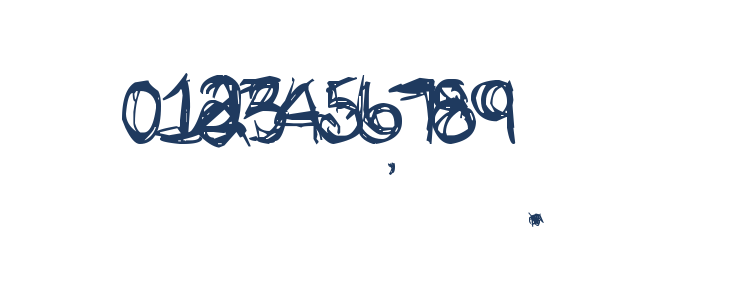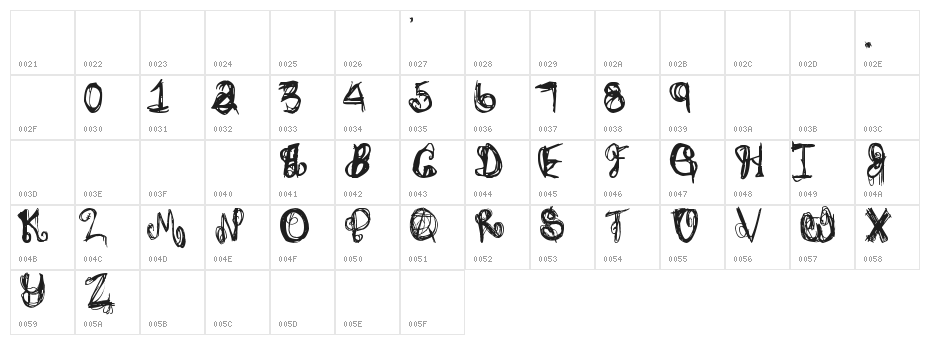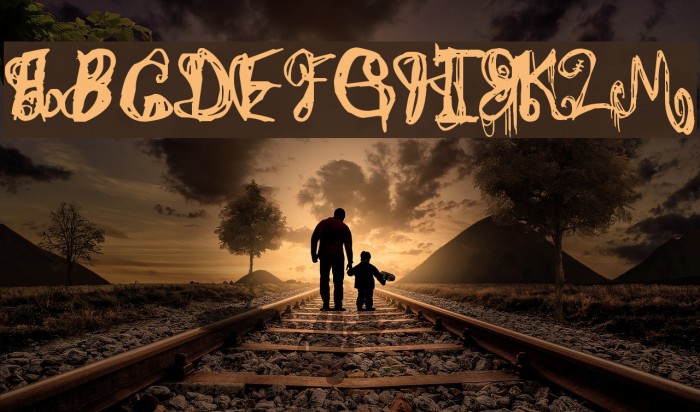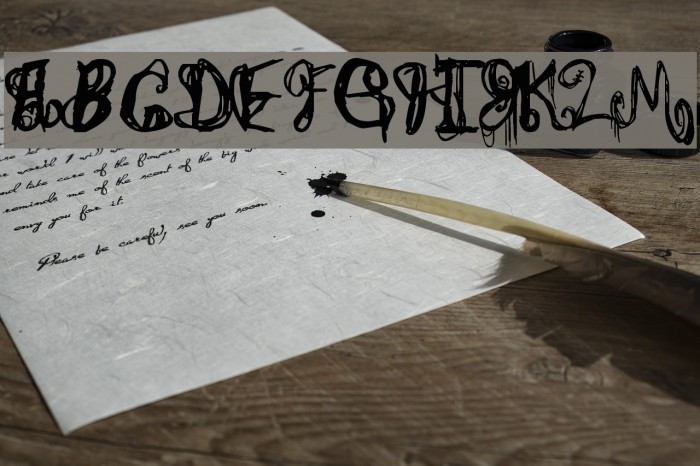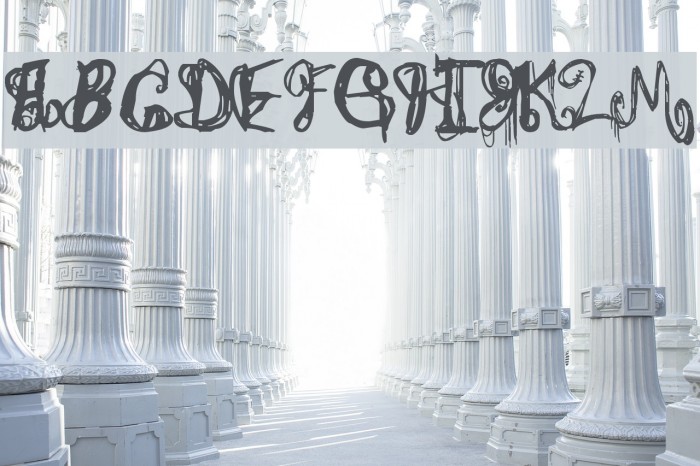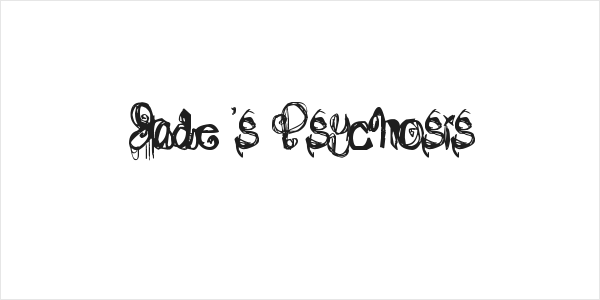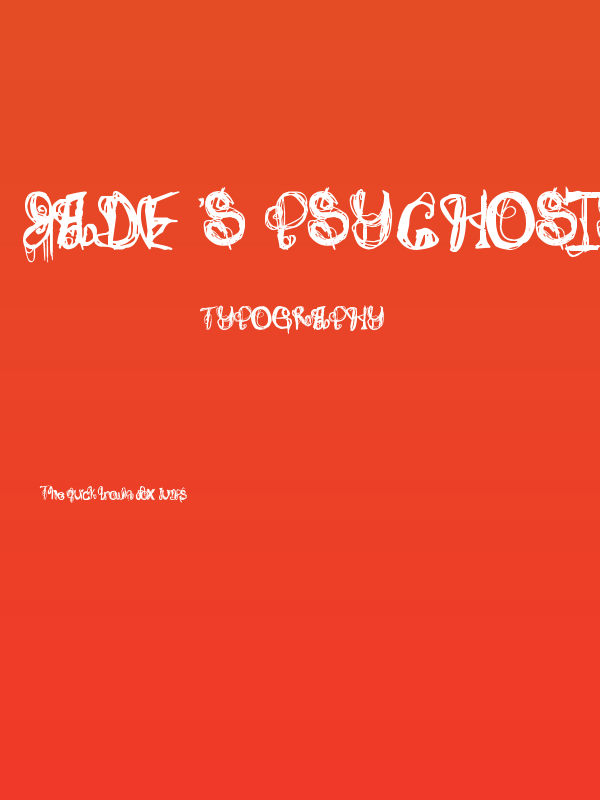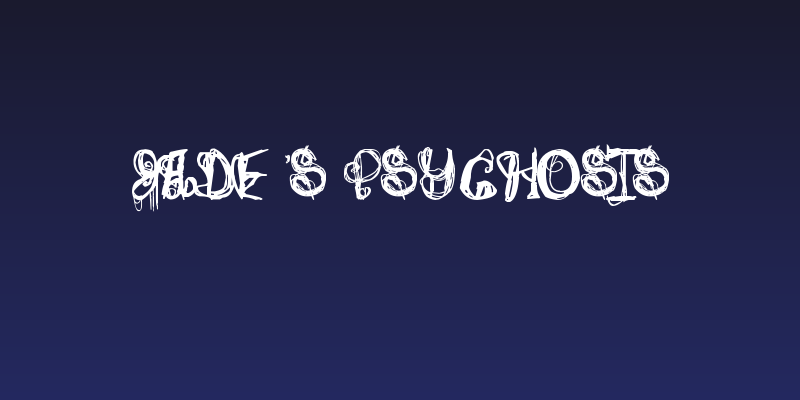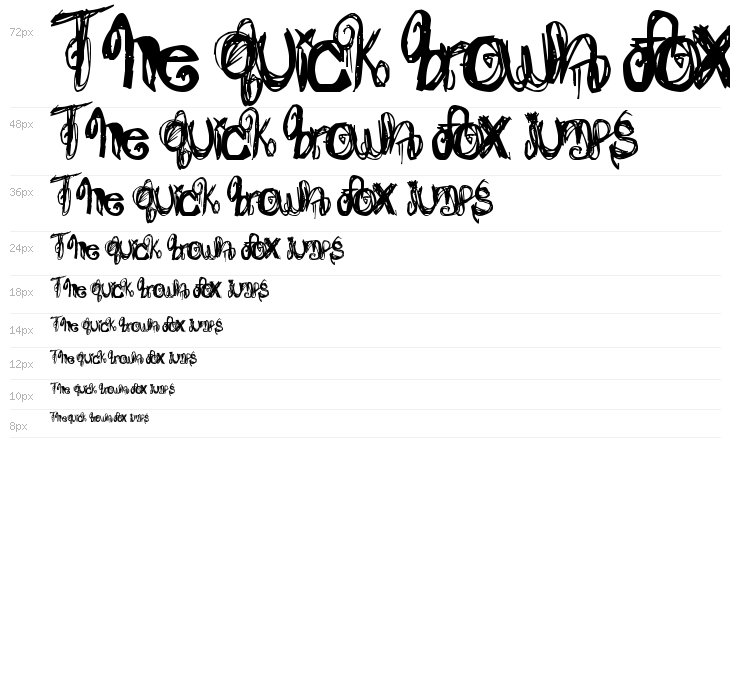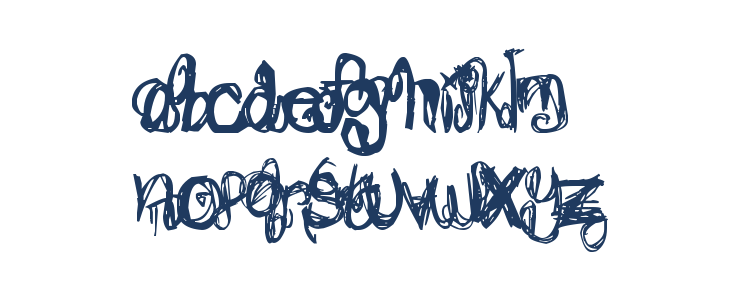
Jade's Psychosis Font
Jade's Psychosis Description
This font exhibits a chaotic and distressed style, characterized by its intricate and overlapping strokes. Each character appears as if it is hand-drawn with an erratic and expressive flair, giving it a unique, almost graffiti-like appearance. The letters are heavily stylized with varying thicknesses, creating a sense of movement and energy. The font's design is highly decorative, with some letters incorporating additional loops and swirls, enhancing its unconventional and artistic look. This font is not suited for body text due to its complexity but stands out as a bold statement in headlines or artistic projects.
| Use Case | Headlines, Artistic projects, Posters |
| Proposed Projects | Ideal for album covers, street art-inspired designs, posters, and creative branding projects. |